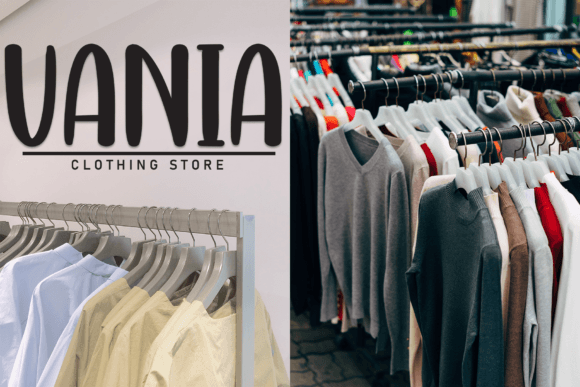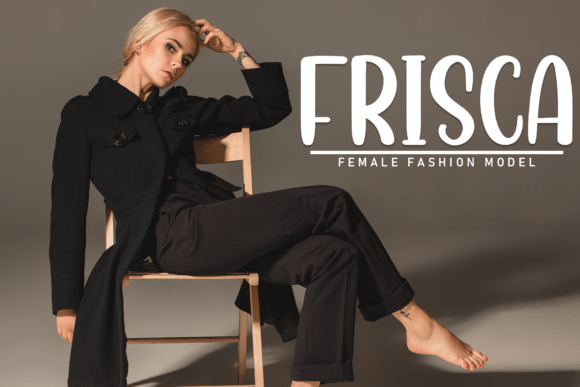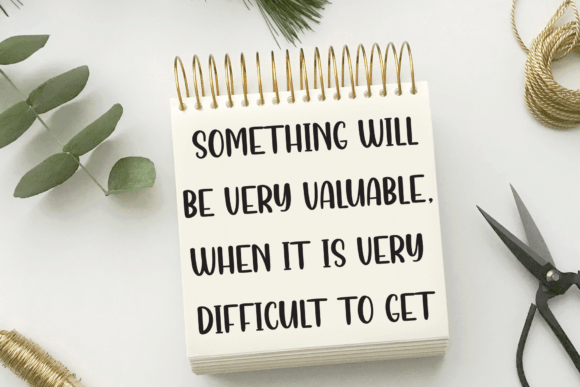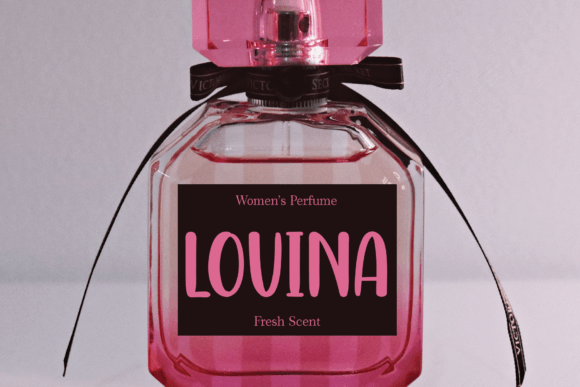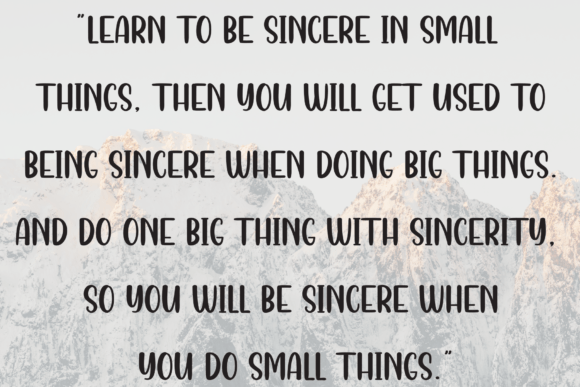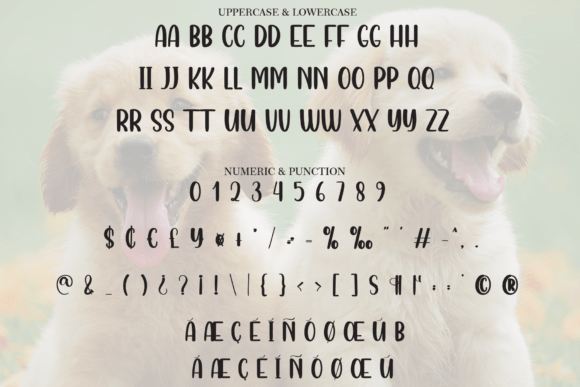
Cute Puppy Font: Add a Sweet Touch to Your Designs
Are you looking for a font that can add a playful and charming touch to your designs? Look no further than the Cute Puppy font! This sweet and friendly handwritten font is perfect for creating wedding invitations, cards, and other designs that require a fun and whimsical feel.
What is Cute Puppy Font?
Cute Puppy is a beautiful handwritten font that is fresh, cute, and full of personality. Its sweet and friendly style makes it ideal for a wide range of design projects, from wedding invitations and cards to posters, flyers, and more. The font’s playful and charming feel is sure to capture the attention of your audience and leave a lasting impression.
Key Features of Cute Puppy Font
- Handwritten style: Cute Puppy font has a beautiful handwritten style that gives it a personal and unique touch.
- Sweet and friendly: The font’s sweet and friendly style makes it perfect for designs that require a playful and charming feel.
- Fresh and cute: The font’s fresh and cute style makes it ideal for designs that require a modern and youthful feel.
- Versatile: Cute Puppy font can be used for a wide range of design projects, from wedding invitations and cards to posters, flyers, and more.
Uses of Cute Puppy Font
Cute Puppy font is perfect for a wide range of design projects, including:
- Wedding invitations: The font’s sweet and friendly style makes it perfect for wedding invitations, adding a playful and charming touch to your special day.
- Cards: Cute Puppy font is ideal for creating cards for special occasions, such as birthdays, anniversaries, and more.
- Posters and flyers: The font’s fresh and cute style makes it perfect for creating posters and flyers that require a modern and youthful feel.
- Social media graphics: Cute Puppy font can be used to create social media graphics that are fun, playful, and engaging.
Benefits of Using Cute Puppy Font
Using Cute Puppy font in your designs can have several benefits, including:
- Unique and personalized touch: The font’s handwritten style gives your designs a unique and personalized touch.
- Emotional connection: The font’s sweet and friendly style can help create an emotional connection with your audience.
- Increased engagement: The font’s playful and charming feel can help increase engagement and capture the attention of your audience.
Tips for Using Cute Puppy Font
Here are some tips for using Cute Puppy font in your designs:
- Use it for headings and titles: Cute Puppy font is perfect for headings and titles, adding a playful and charming touch to your designs.
- Pair it with other fonts: The font can be paired with other fonts to create a unique and visually appealing design.
- Experiment with colors and textures: Cute Puppy font can be used with a variety of colors and textures to create a unique and personalized design.
Cute Puppy font is a sweet and friendly handwritten font that is perfect for adding a playful and charming touch to your designs. Its fresh and cute style makes it ideal for a wide range of design projects, from wedding invitations and cards to posters, flyers, and more. With its unique and personalized touch, Cute Puppy font can help create an emotional connection with your audience and increase engagement. So why not give it a try and add a sweet touch to your designs?